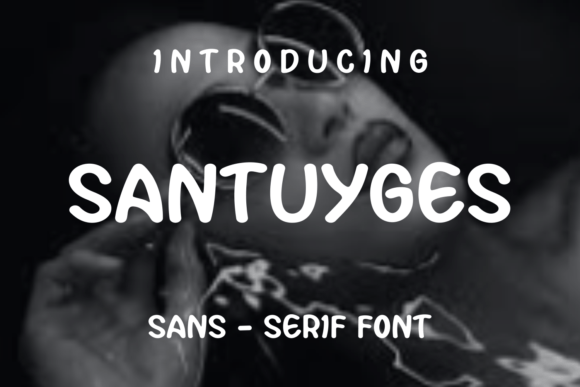
Introducing Santuyges Font, a sans serif font family that exudes coolness and uniqueness, designed by the talented lelevien. More than just a collection of letters, Santuyges is an artistic expression, a symphony of curves and lines that dance harmoniously on your screen. crafted with meticulous attention to detail, each glyph in this font is a testament to creativity and innovation.
Unleash your creativity with Santuyges, the perfect font for business PowerPoint presentations. Its clean, modern lines and impeccable legibility ensure that your message is delivered with impact and clarity. Whether you're crafting a pitch deck, presenting a marketing strategy, or showcasing your latest project, Santuyges will elevate your words and leave a lasting impression on your audience.
Santuyges is not just for business presentations; it's a versatile font that shines in a myriad of applications. Design eye-catching logos, create stylish posters, or craft elegant invitations—Santuyges adapts seamlessly to your creative vision. Its inherent versatility and timeless appeal make it a must-have for any designer's toolkit.
With Santuyges, you'll discover a world of endless possibilities. Its captivating charm and undeniable sophistication will add a touch of magic to your designs. Download Santuyges today and elevate your creativity to new heights. Transform your presentations, designs, and projects into masterpieces that captivate and inspire.